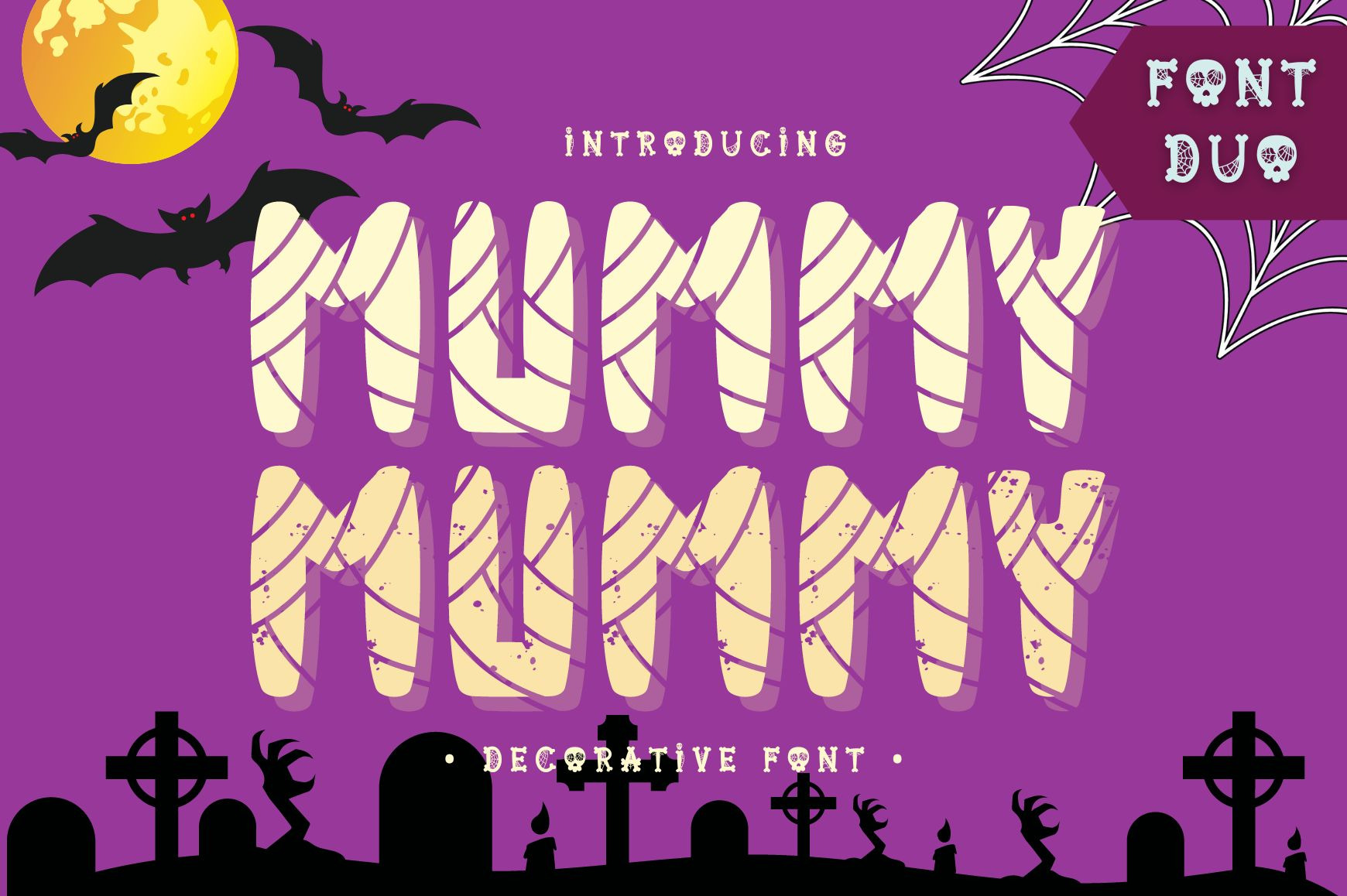
Mummy - Decorative font
Mummy is a scary and fun decorative font. It embodies playfulness and authenticity and is the perfect choice for all your favorite Halloween projects, or even for blog posts, logos, branding, ads, invitations, greeting cards, planners, photo albums, decorations, and much more. Add it to any of your designs, and enjoy the results!